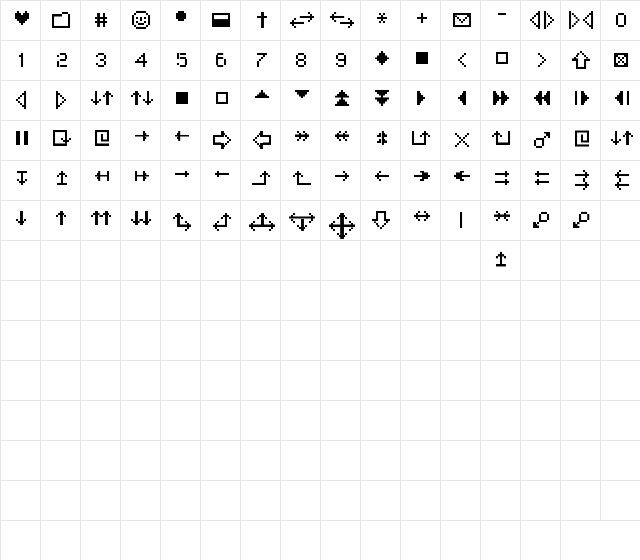
MiniStrzalki Regular
Design Context for MiniStrzalki Typeface
MiniStrzalki takes a measured approach to typography — its balanced proportions and neutral character make it a reliable workhorse for both digital and print work.